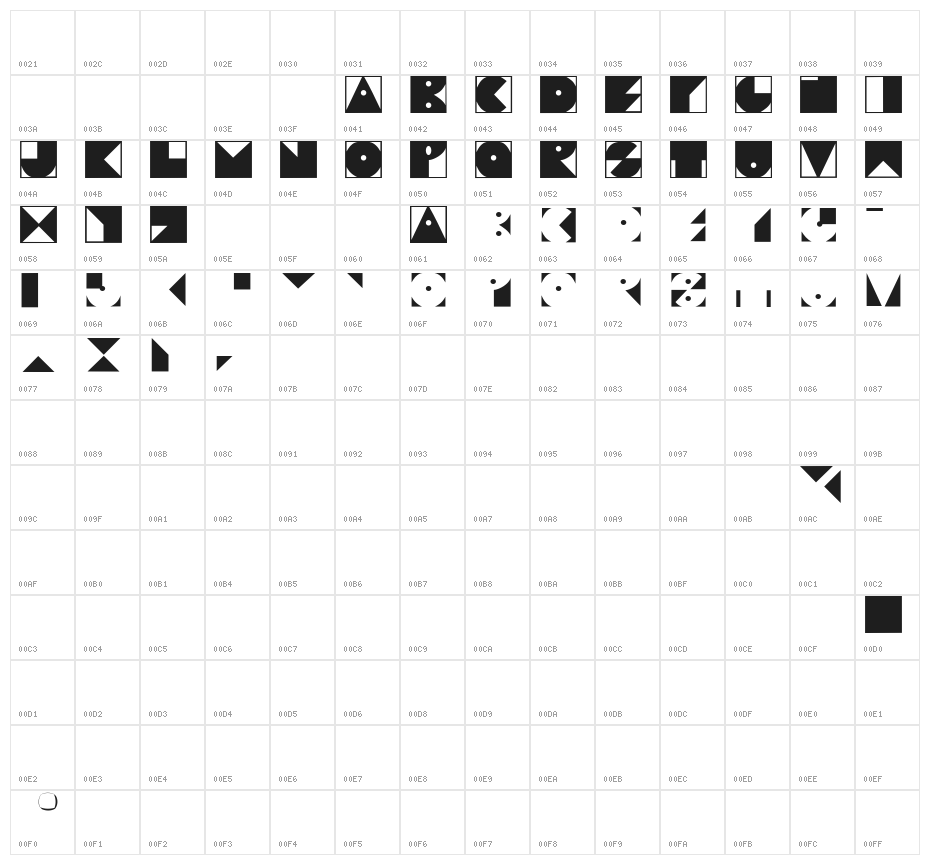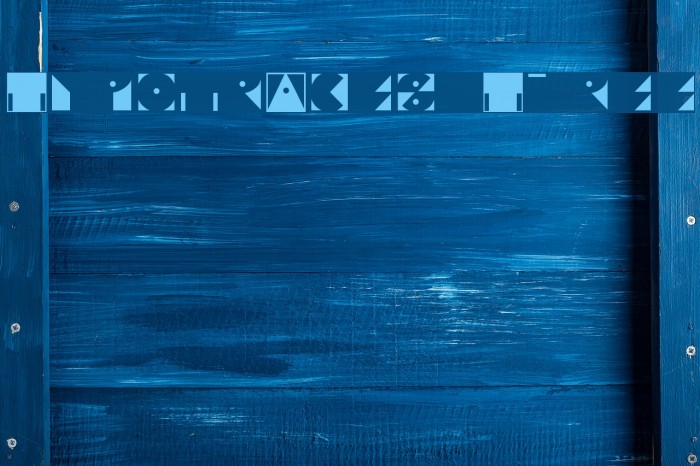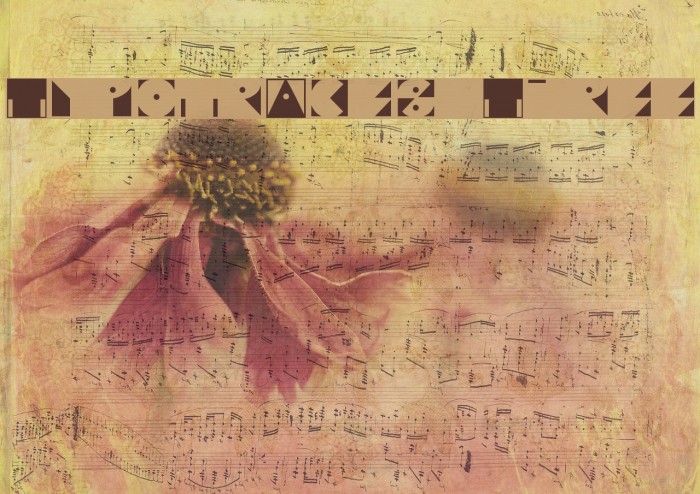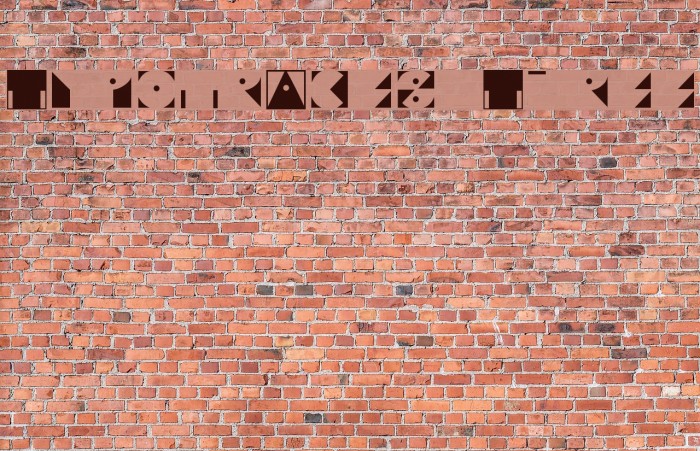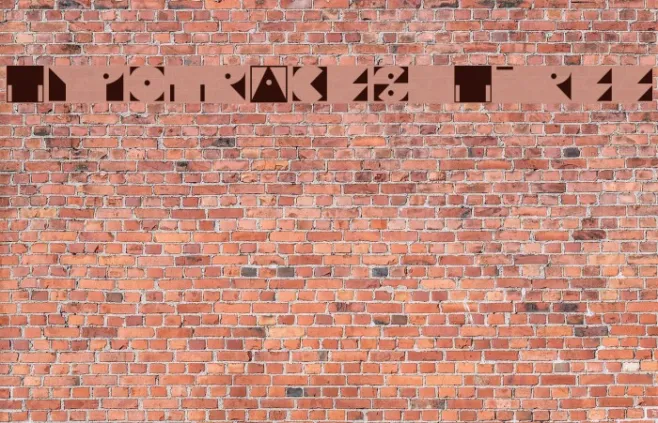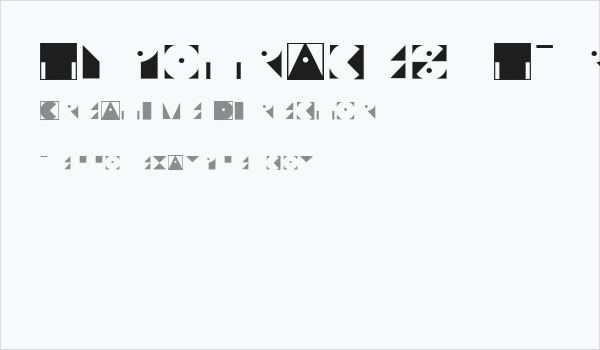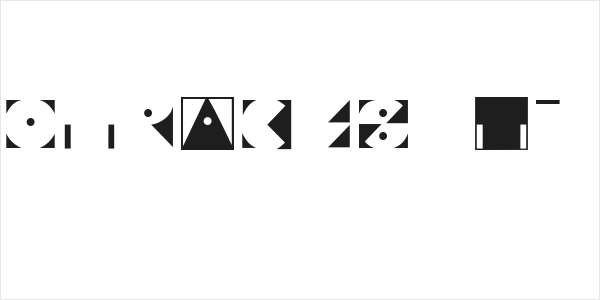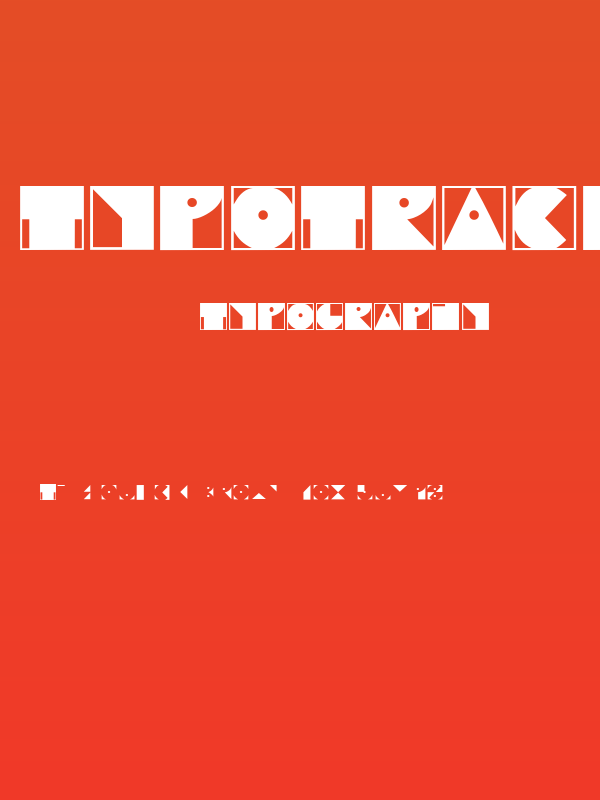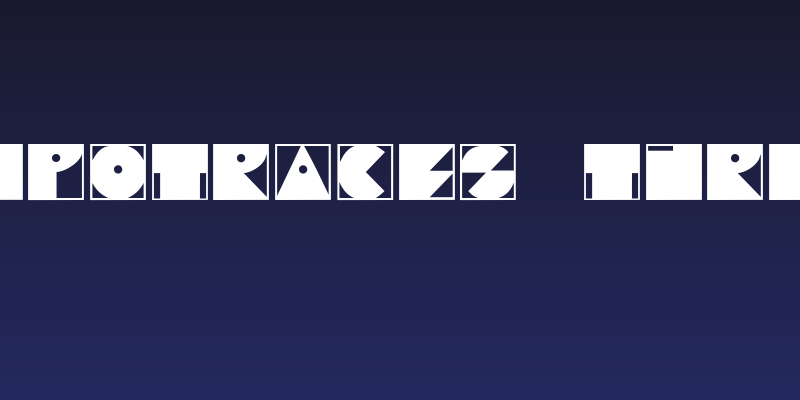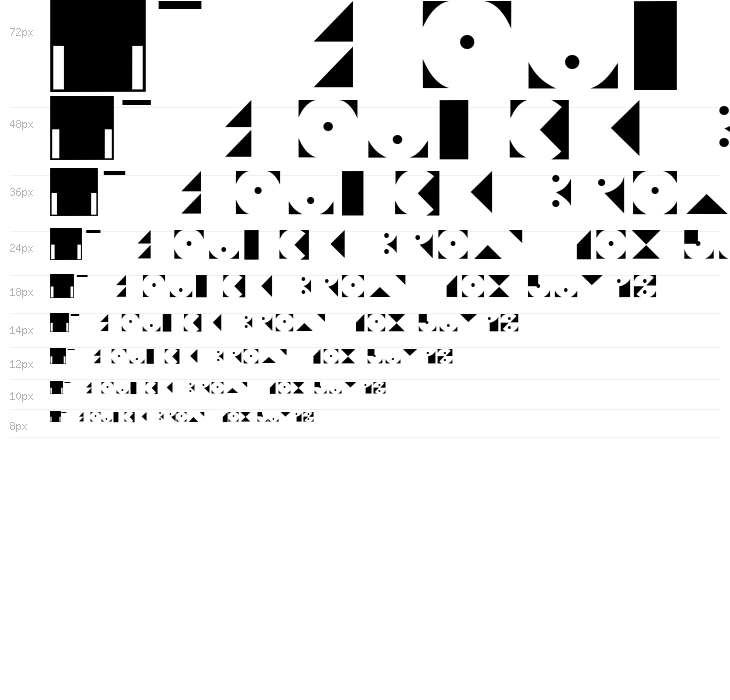
Typotraces-Three Font
This font features a highly geometric and abstract design, with each character constructed from a combination of basic shapes such as triangles, circles, and rectangles. The use of negative space is prominent, creating a bold and visually striking appearance. Each letter is enclosed within a square, enhancing the modular and structured feel. The font's unique style is reminiscent of modern art and abstract design, making it stand out with its unconventional form. The characters are uniform in width, contributing to a monospaced look, while the contrast between the filled and empty spaces adds to its dynamic visual impact.
| Overall Style | Modern, Abstract |
| Use Case | Logos, Posters, Artistic Displays |
| Proposed Projects | Ideal for modern art projects, abstract posters, avant-garde branding, and experimental design work. |